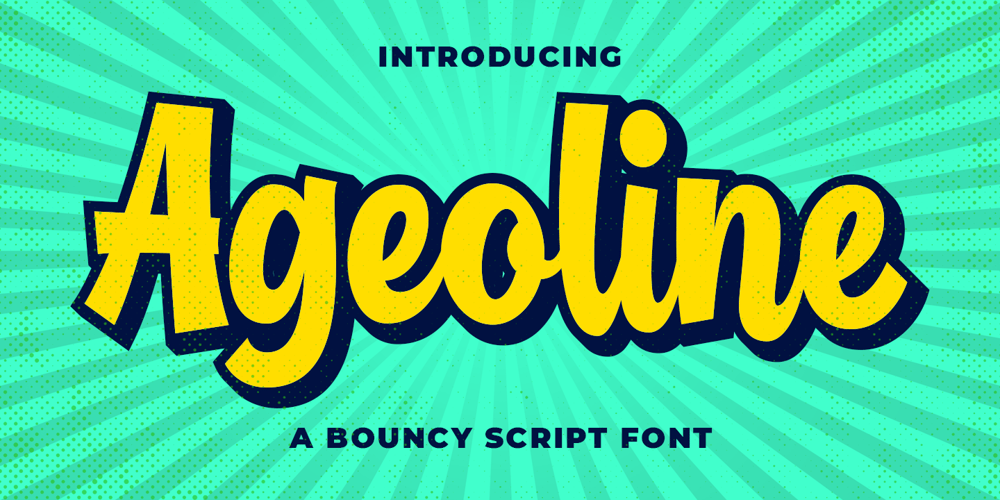
Ageoline Font Family was designed by Bangkit Tri Setiadi and published by Blankids. Ageoline contains 2 styles and family package options. Introducing of our new product the name is Ageoline a Bouncy Script Font. Ageoline inspired by bouncy lettering style this font is a fun theme very good for display, tshirt design, craft, quote sign, logotype and etcFEATURES : Uppercase Lowercase Number Punctuation Multilingual PUA Encode Opentype